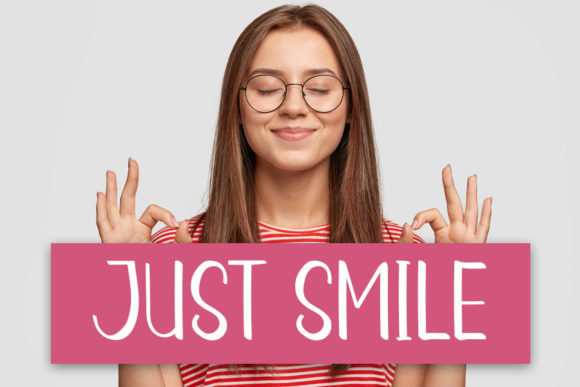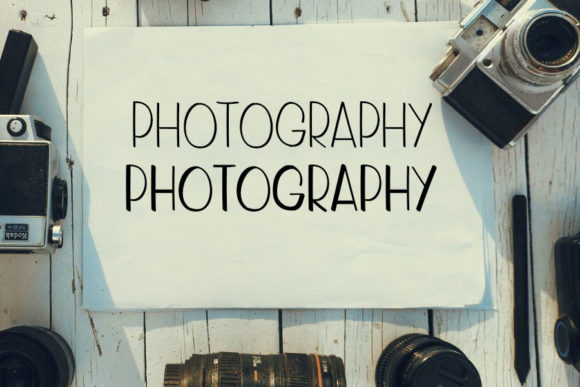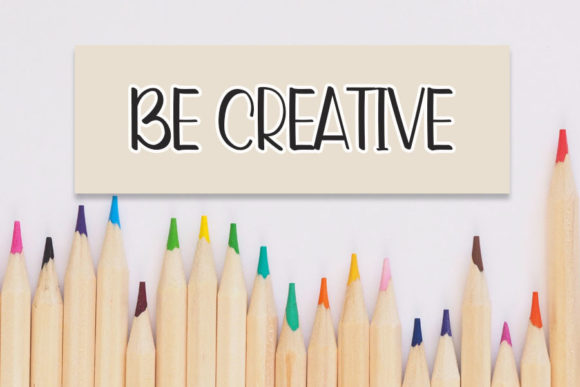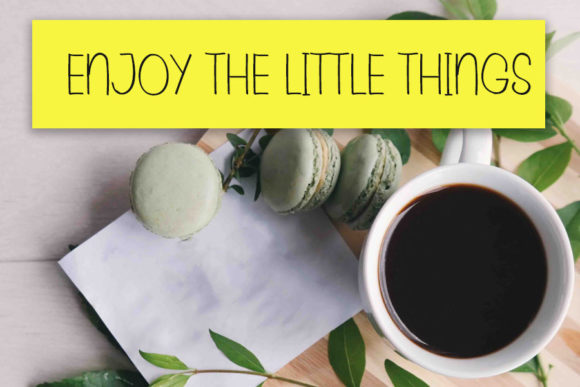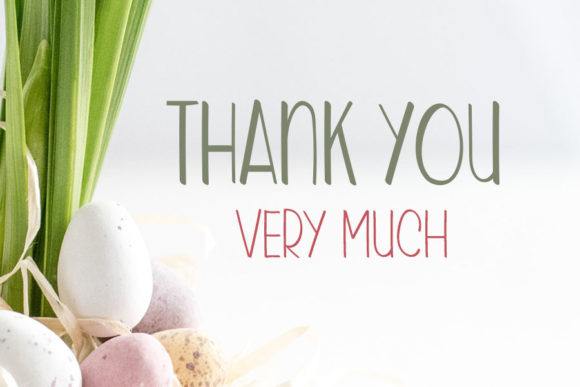
Introducing Christmas Flower Font: The Perfect Addition to Your Design Collection
Are you a designer or crafter looking for a unique and charming font to add a personal touch to your creations? Look no further than Christmas Flower Font, a delightful and simple lettered handwritten font that’s perfect for a variety of projects. In this article, we’ll dive into the details of this beautiful font and explore its many uses.
What is Christmas Flower Font?
Christmas Flower Font is a cute and simple lettered handwritten font that’s designed to resemble authentic chalkboard writing. Its charming and whimsical feel makes it an ideal choice for creating eye-catching designs that are sure to capture attention. Whether you’re working on a chalkboard quote, teaching material, or any other project, this font is sure to add a personal and realistic feel to your designs.
Key Features of Christmas Flower Font
- Cute and Simple Design: Christmas Flower Font features a simple and adorable design that’s perfect for creating a variety of projects, from chalkboard quotes to teaching materials.
- Handwritten Style: This font boasts a beautiful handwritten style that’s reminiscent of authentic chalkboard writing.
- Authentic Look: The font’s authentic look will add a personal and realistic feel to your designs, making them stand out from the crowd.
- Versatile: Christmas Flower Font can be used for a wide range of projects, including chalkboard quotes, teaching materials, posters, and more.
Uses for Christmas Flower Font
- Chalkboard Quotes: Add a personal touch to your chalkboard quotes with Christmas Flower Font. Its authentic look will make your quotes look like they were written on a real chalkboard.
- Teaching Materials: Use Christmas Flower Font to create engaging and interactive teaching materials, such as worksheets, posters, and presentations.
- Crafting Projects: Add a touch of whimsy to your crafting projects, such as card making, scrapbooking, and journaling.
- Social Media Graphics: Use Christmas Flower Font to create eye-catching social media graphics, such as Facebook posts, Instagram stories, and Pinterest pins.
Christmas Flower Font is a charming and versatile font that’s perfect for designers and crafters looking to add a personal touch to their creations. Its authentic look and handwritten style make it an ideal choice for a variety of projects, from chalkboard quotes to teaching materials. With its many uses and tips for getting the most out of the font, Christmas Flower Font is a great addition to any design collection.